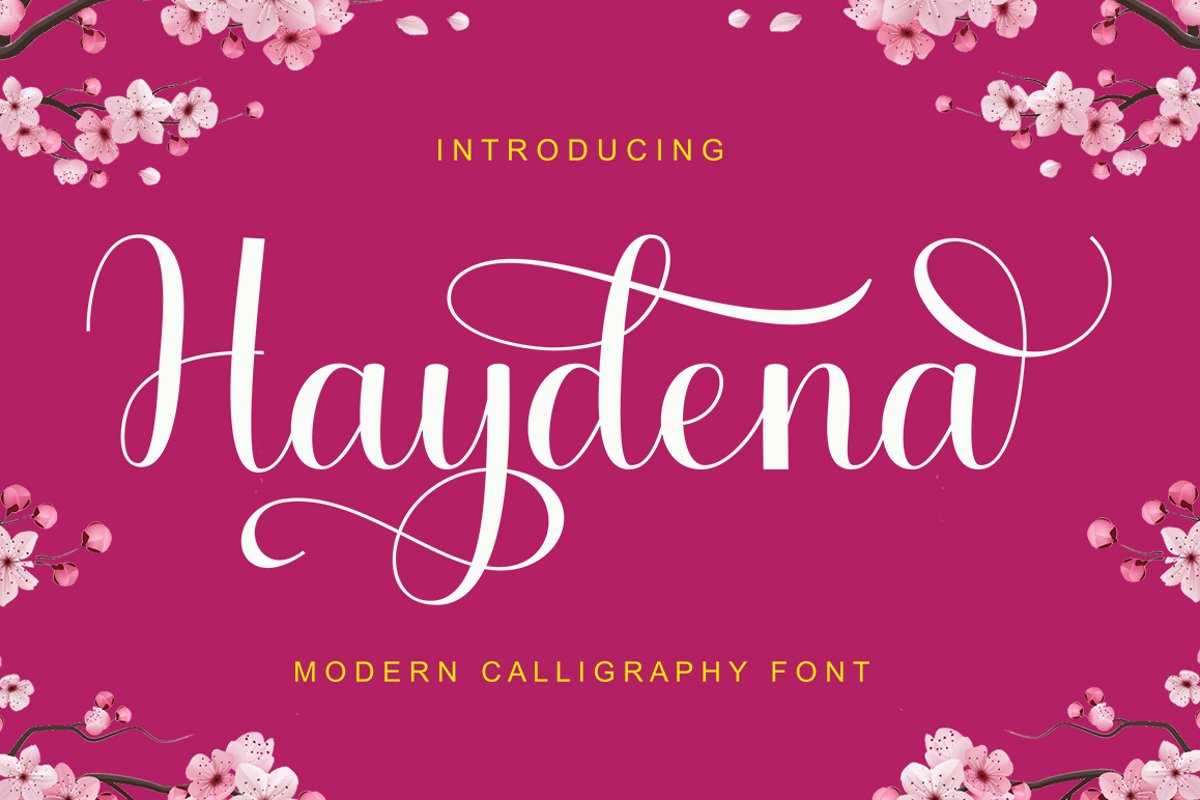
Haydena
Haydena Script is a calligraphic manuscript font, modern, dynamic and pretty with swashes. It can be used for many purposes. such as titles, signatures, logos, wedding invitations, letterhead, signages, labels, newsletters, posters, badges, etc.